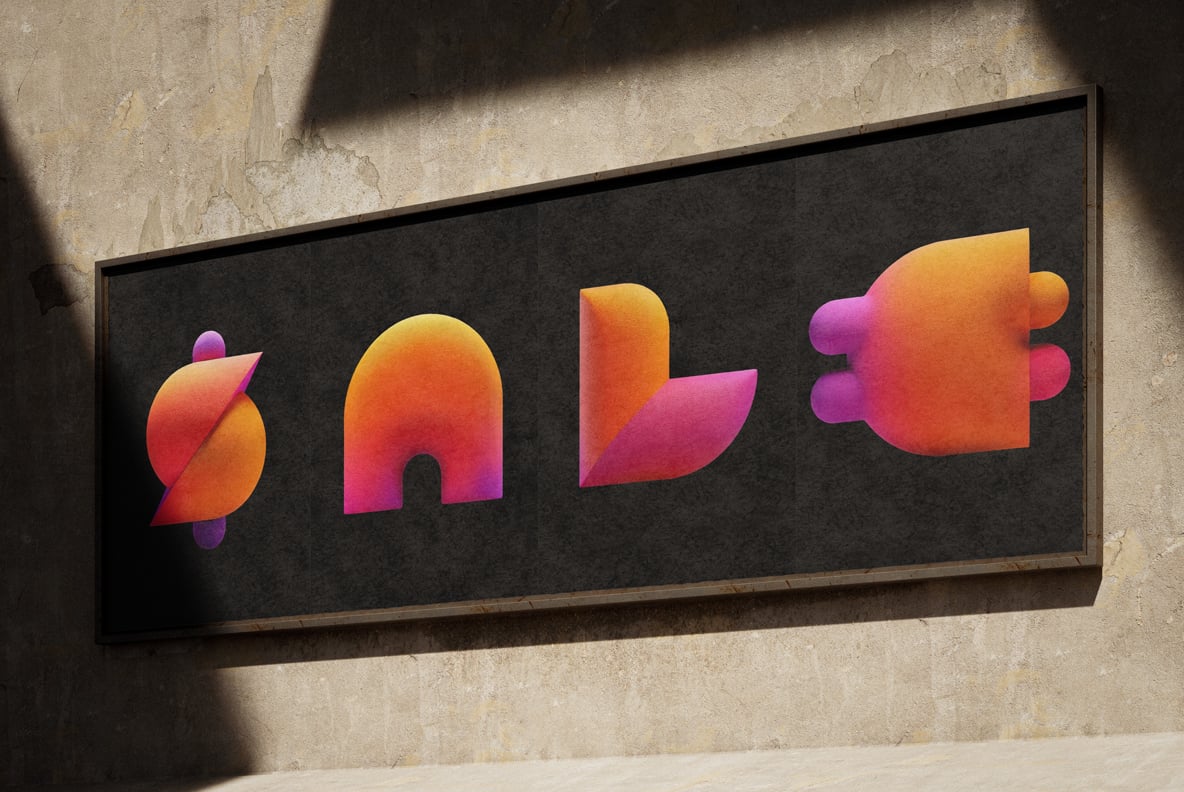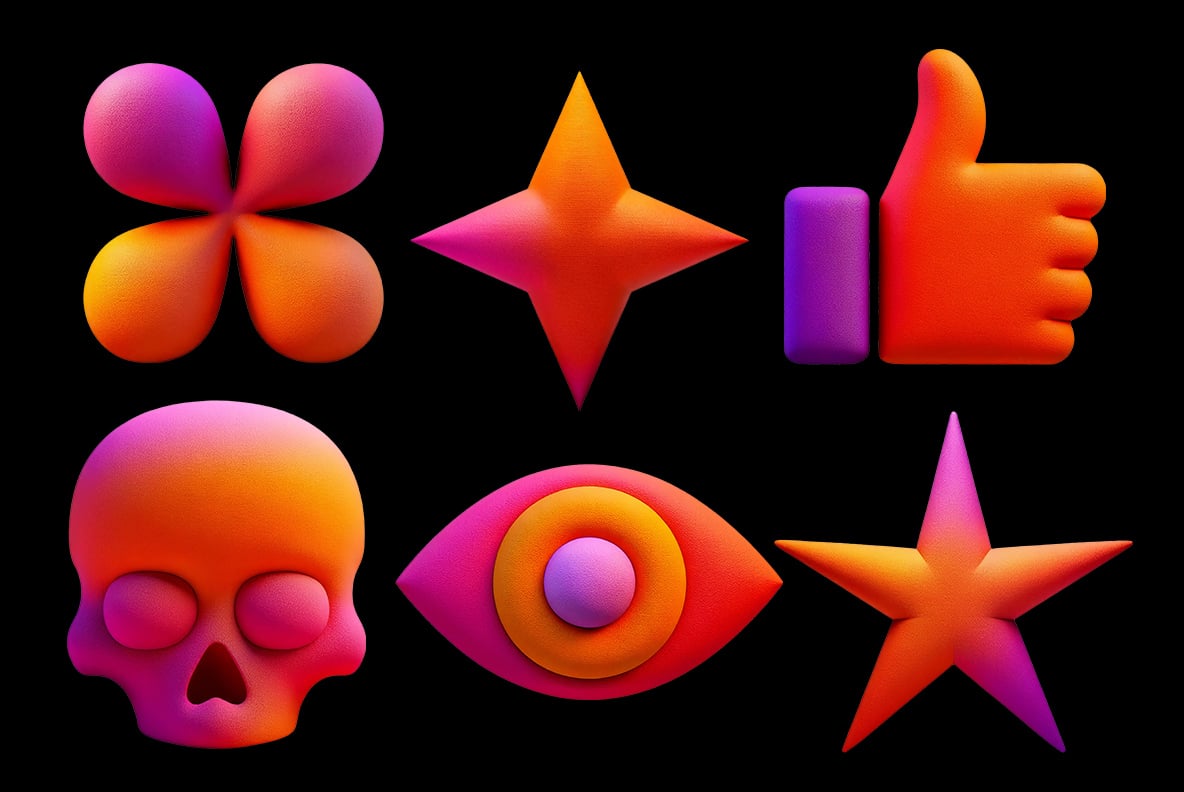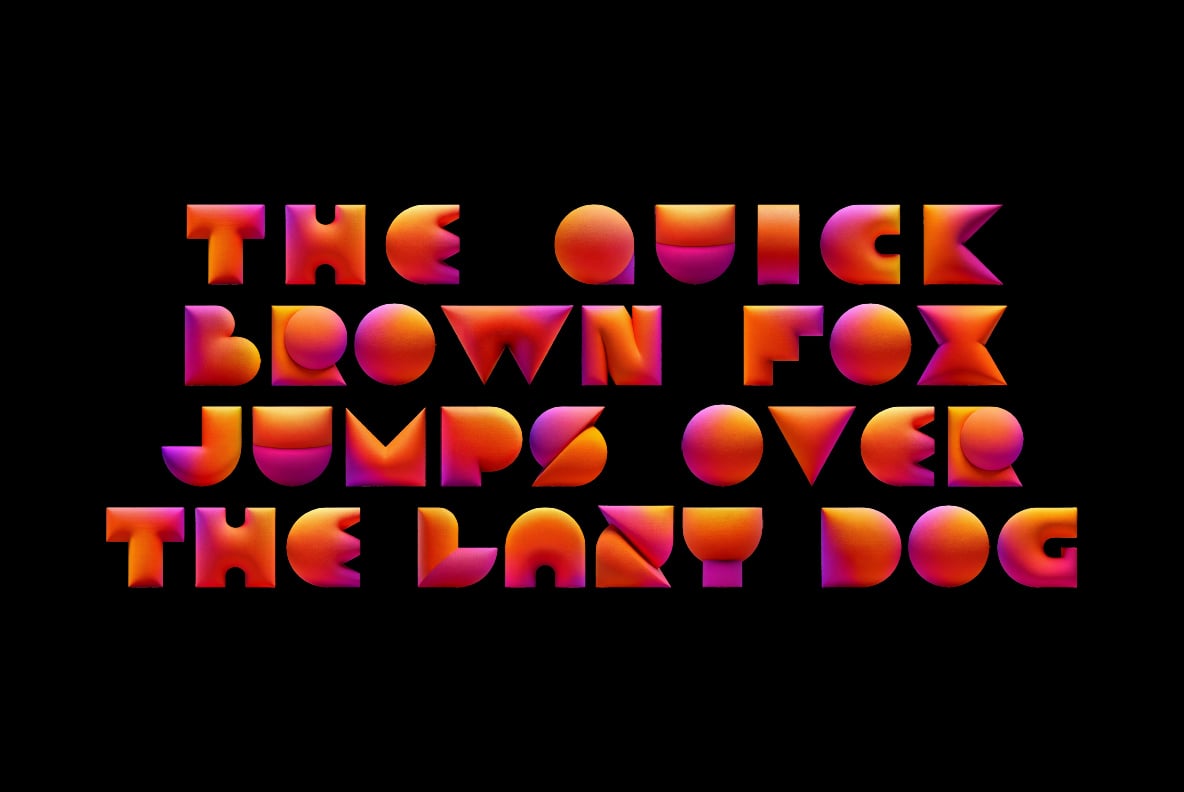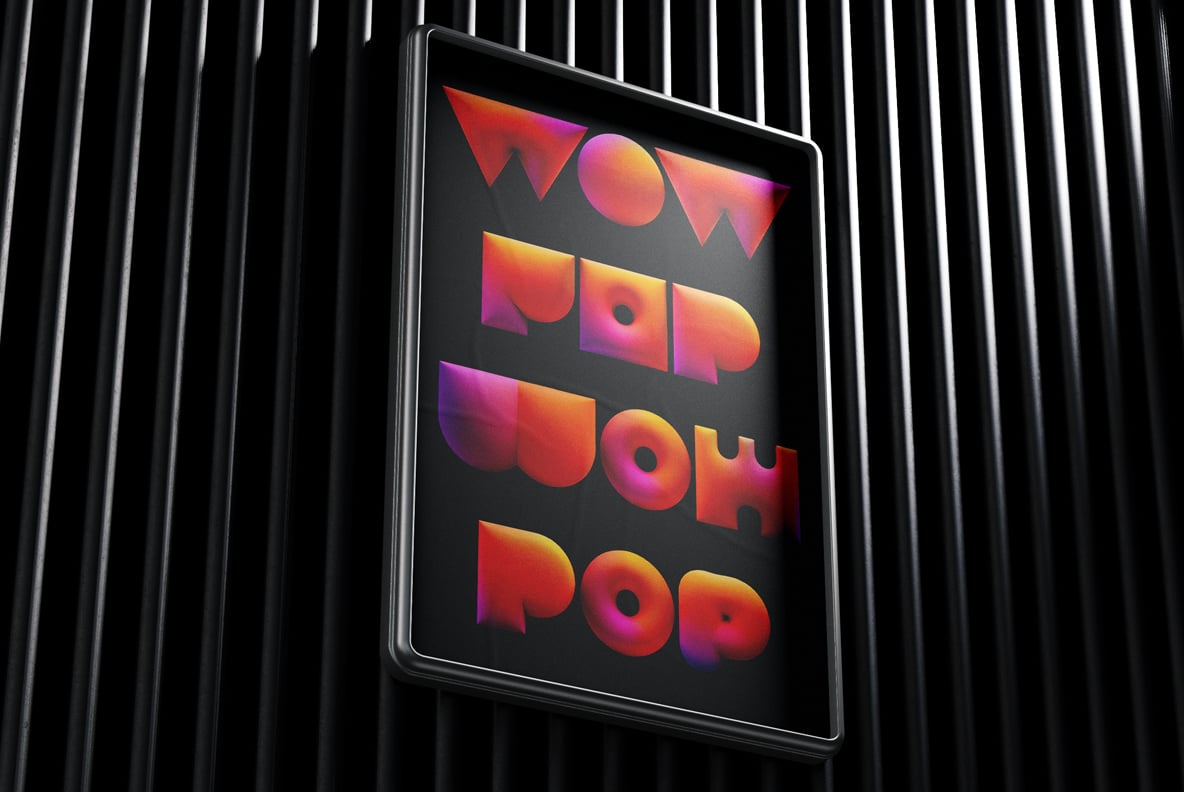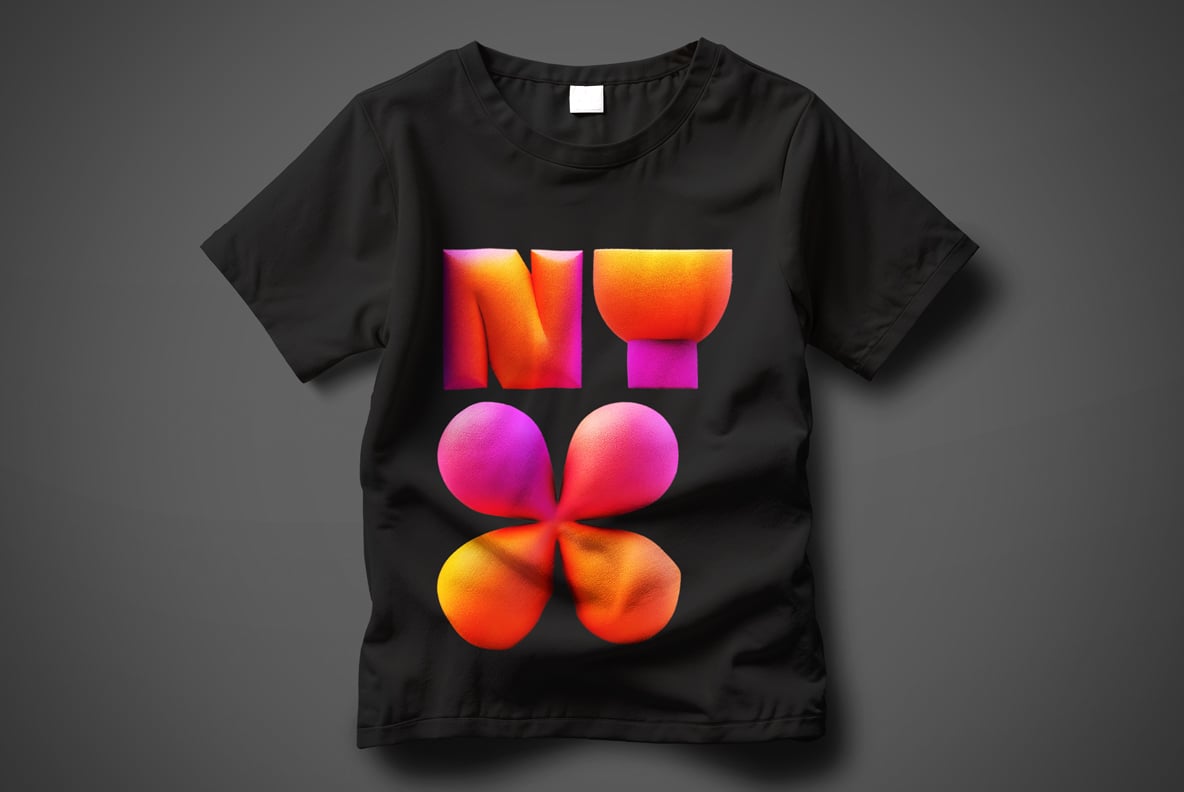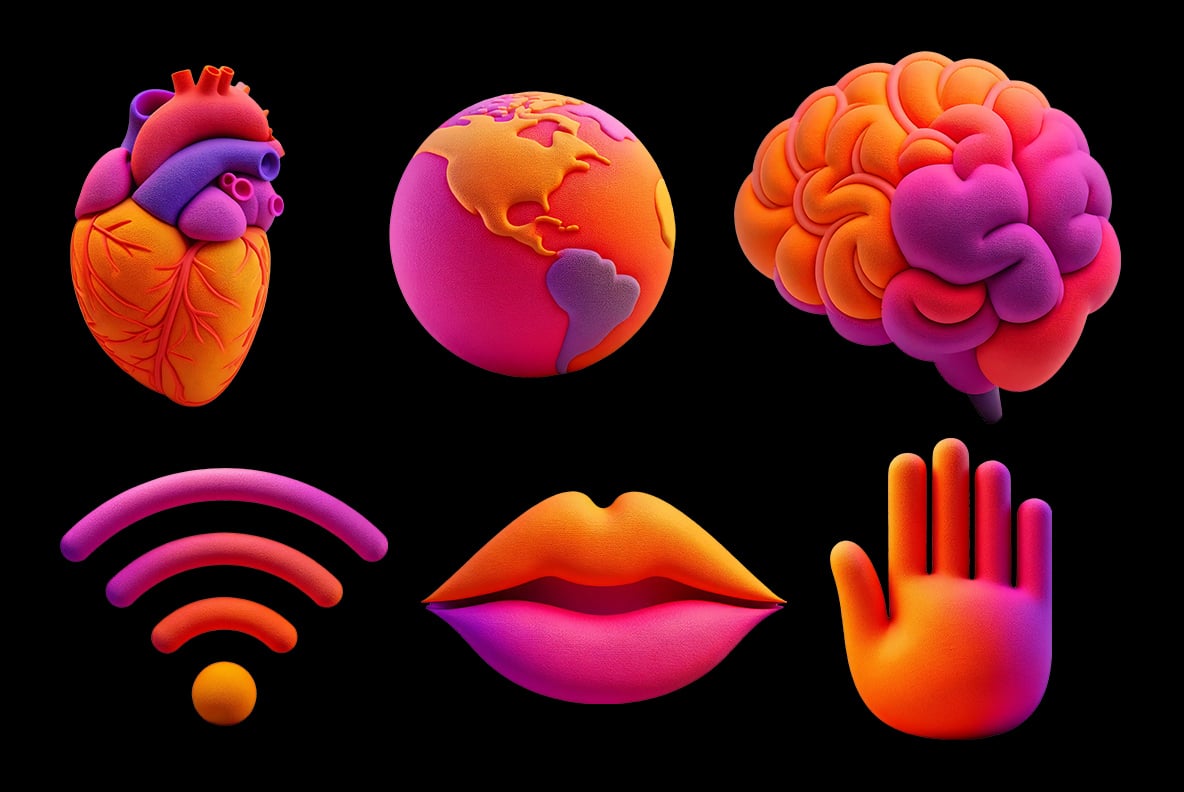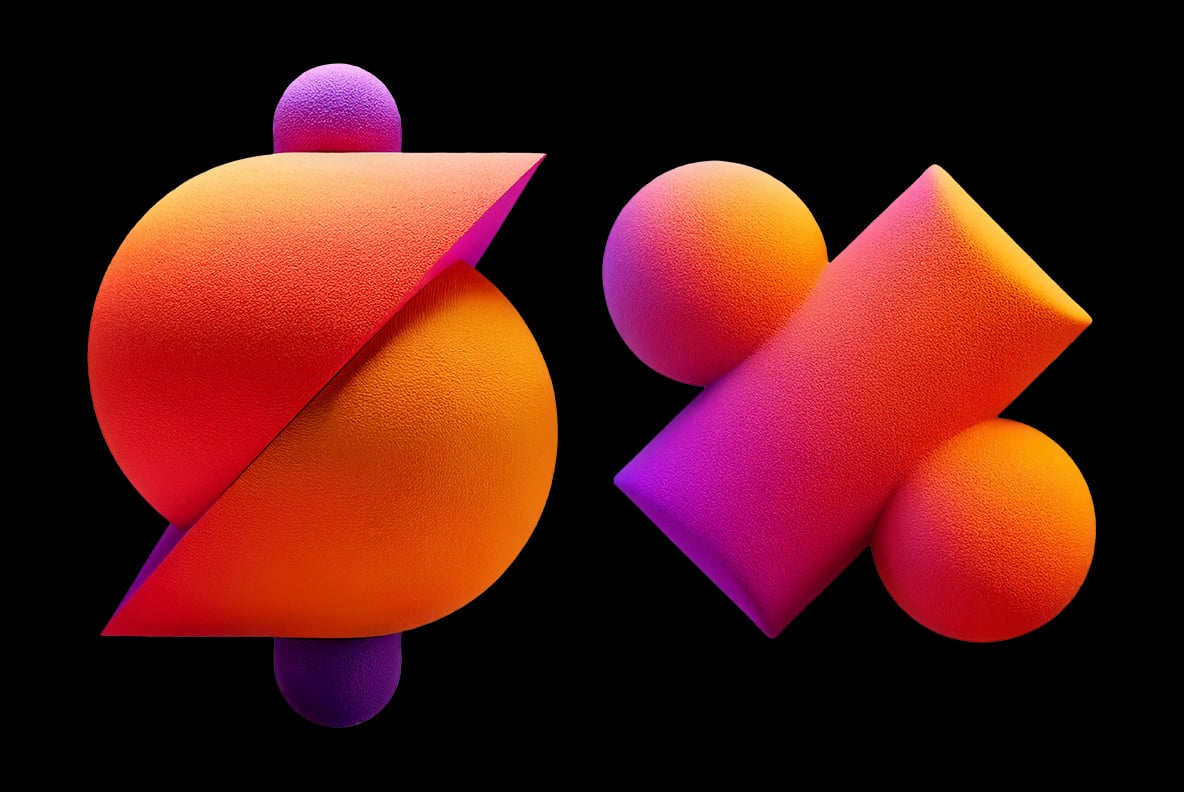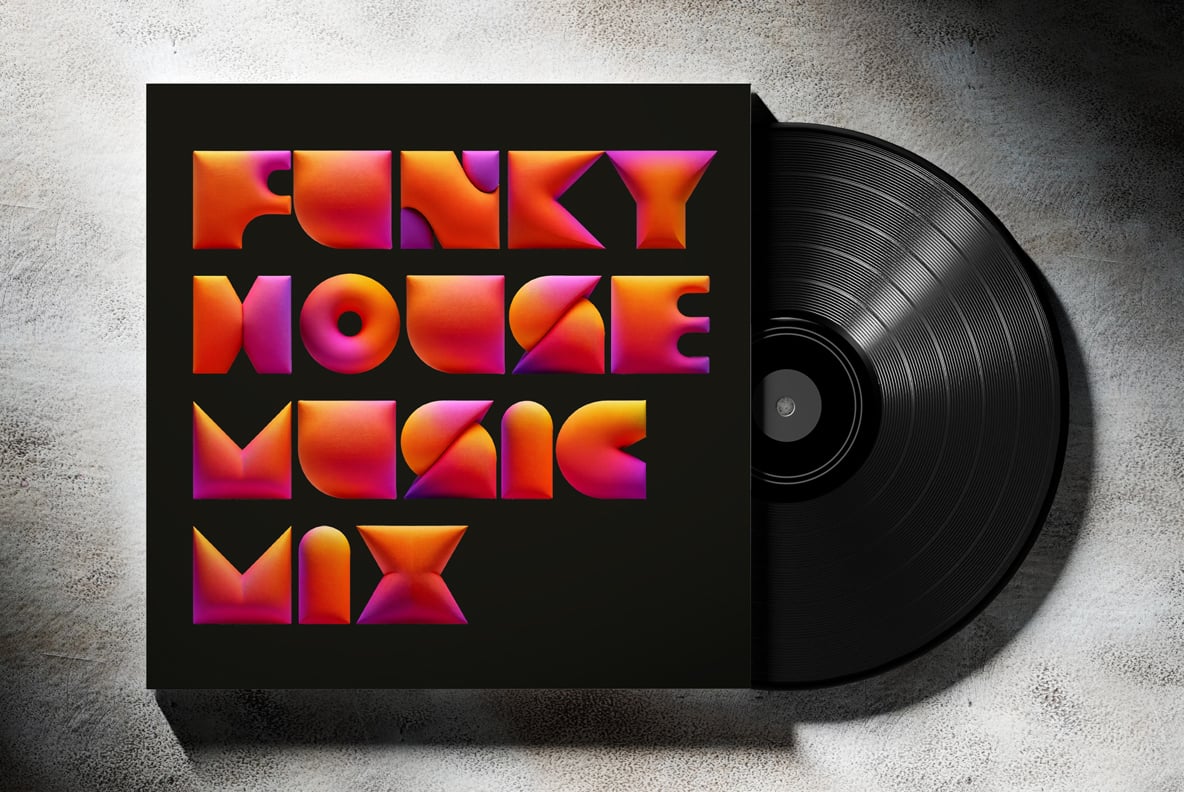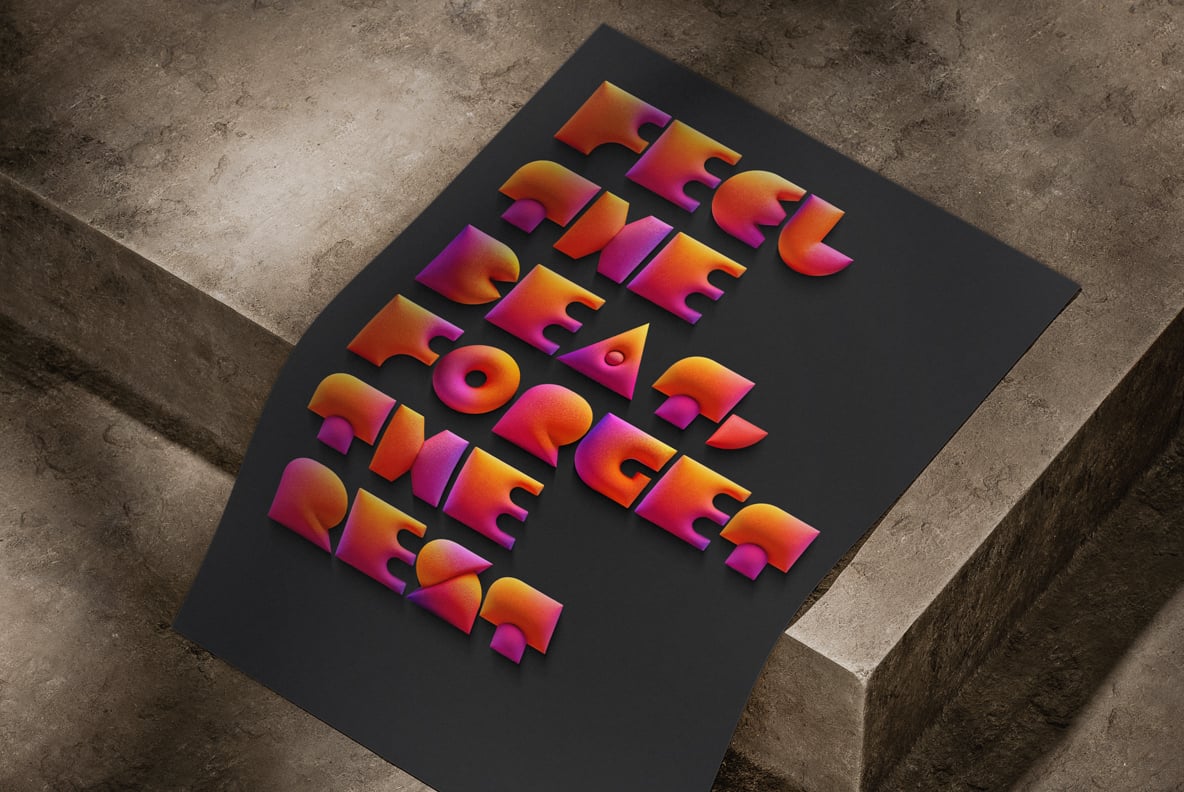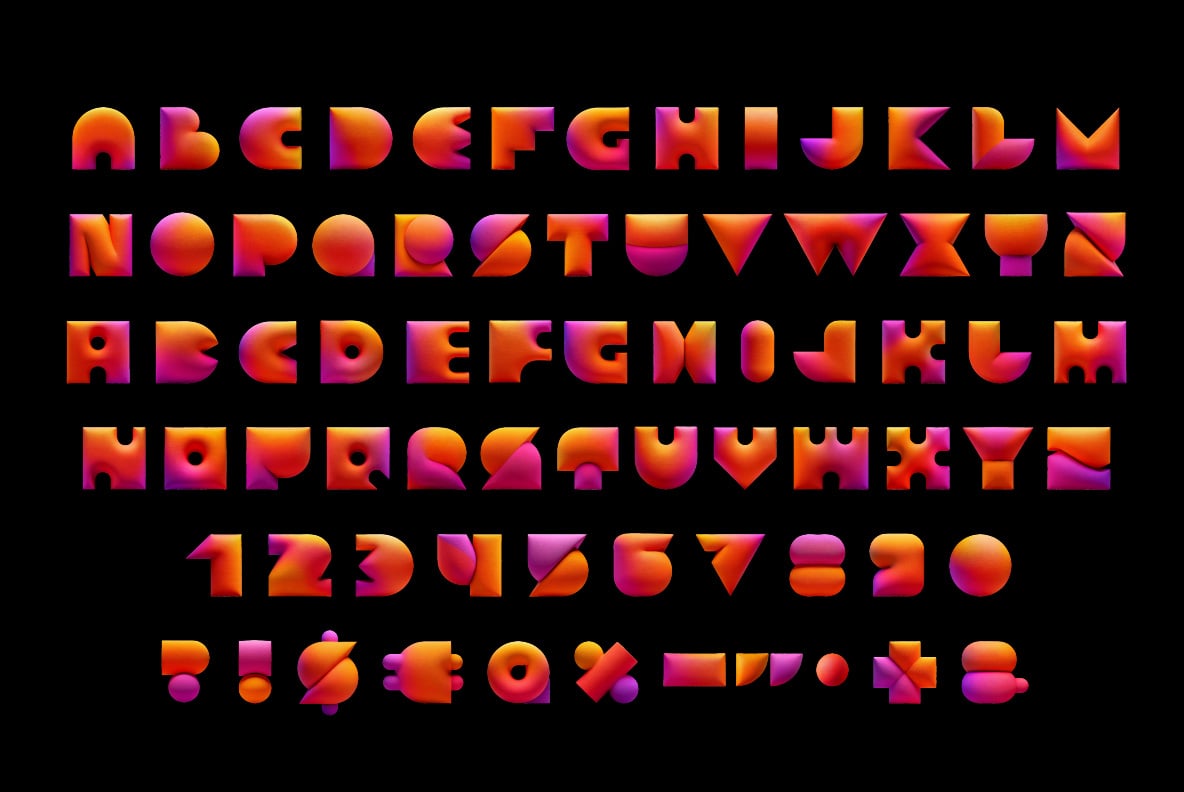
Inflatype Font
Inflatype Font is a playful, squishy, and delightfully weird typeface that looks like it was puffed up with a bike pump and dipped in a gradient sunset. With bold, inflated forms and soft, tactile textures, it feels like typography you can bounce on. Perfect for futuristic parties, toy packaging, kid-focused branding, or anything that needs a big dose of fun and color. Each letter bursts with personality—part pillow, part sculpture, all attitude. Inflatype doesn’t whisper, it shouts with joy. If fonts had egos, this one would float above the rest. Use it when you want your words to pop—literally.
A high definition OpenType Font. Contains uppercase characters, numerals and basic punctuation. (Draw height roughly 800 pixels). All letters and glyphs that comprises this font you can see on the preview.